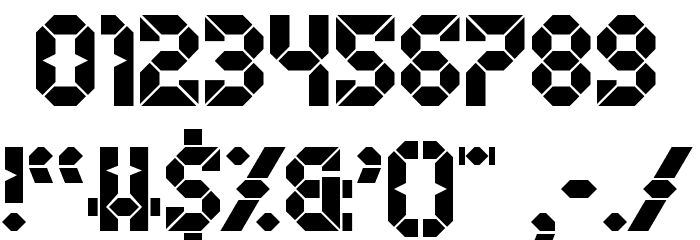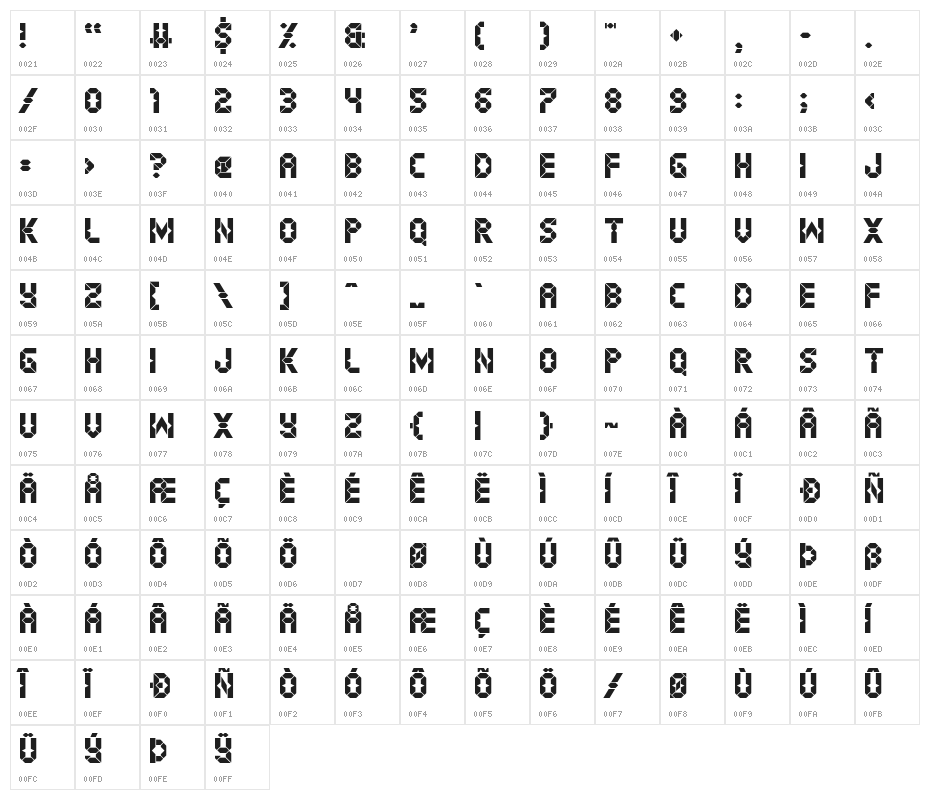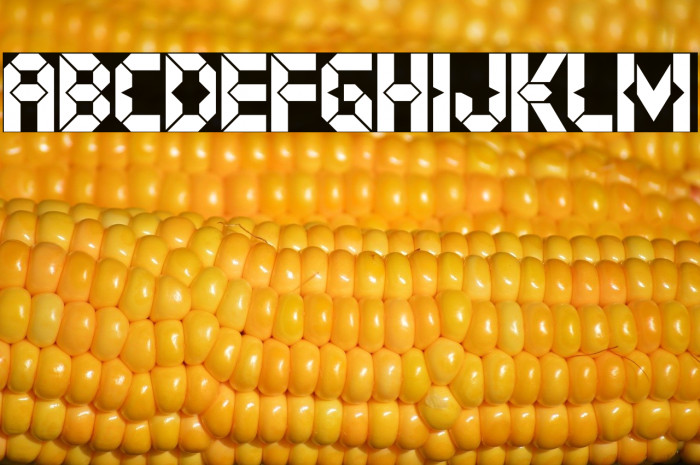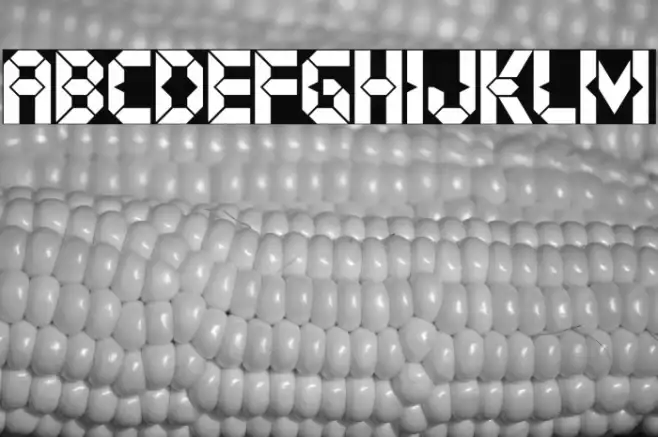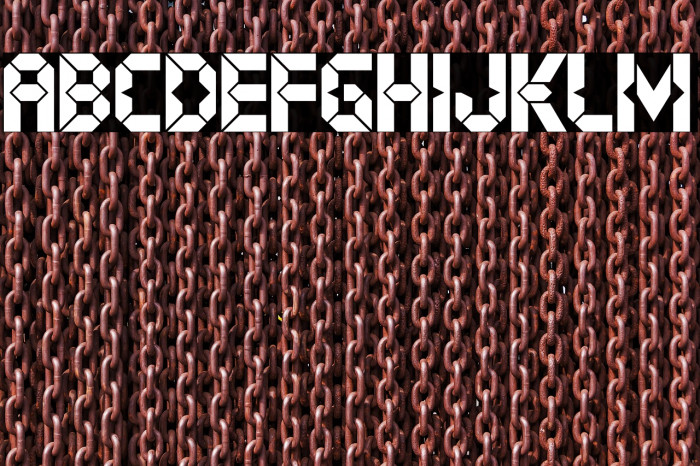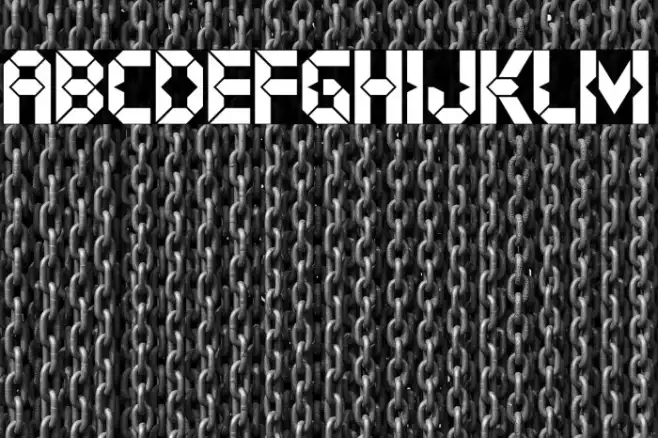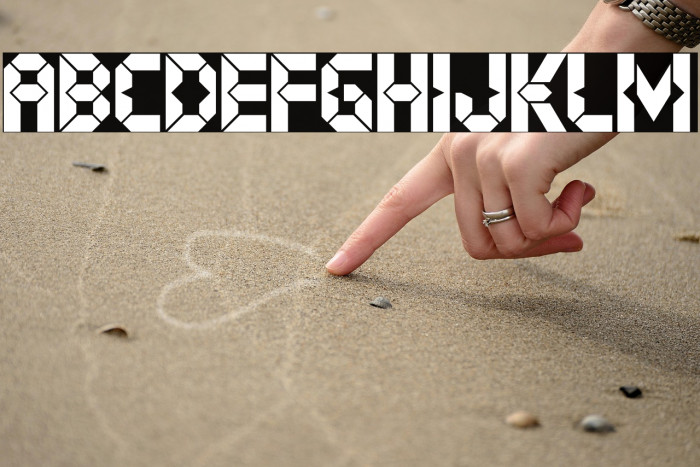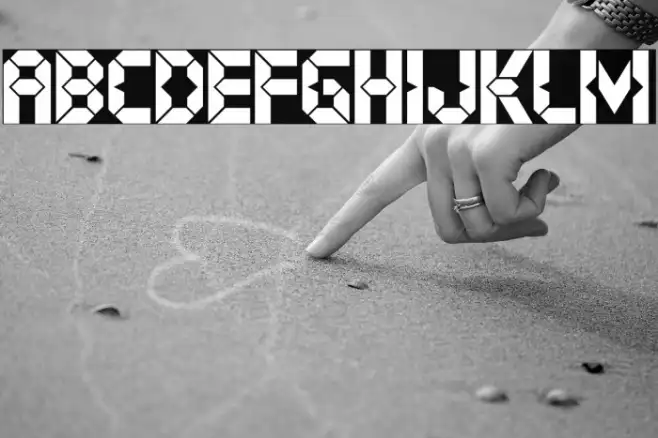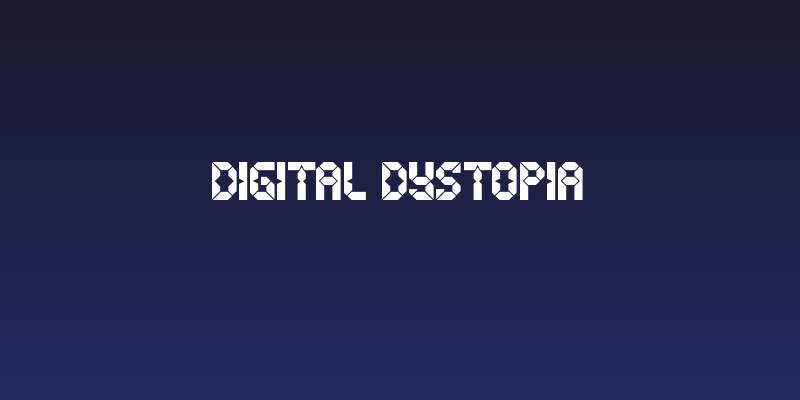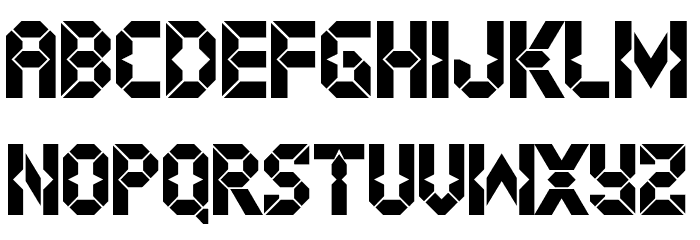
Digital Dystopia Font
Digital Dystopia Description
This font features a bold, geometric design that combines sharp angles and solid shapes to create a futuristic and digital aesthetic. Each character is constructed from a series of interconnected polygons, giving it a unique and striking appearance. The font's design is reminiscent of digital displays and modern technology, making it ideal for projects that require a contemporary and edgy look. The uppercase and lowercase letters maintain a consistent style, with numbers and special characters following the same geometric pattern. This font is perfect for creating eye-catching headlines, posters, and digital artwork.
| Proposed Projects | Ideal for tech-themed posters, digital artwork, video game graphics, and futuristic branding. |